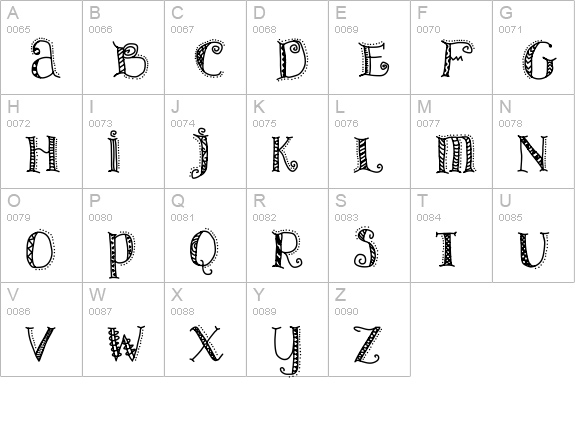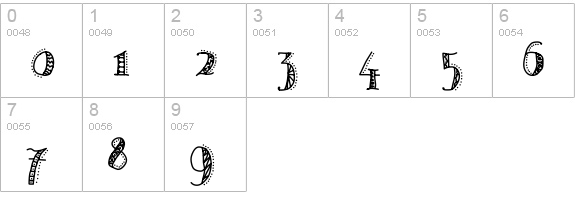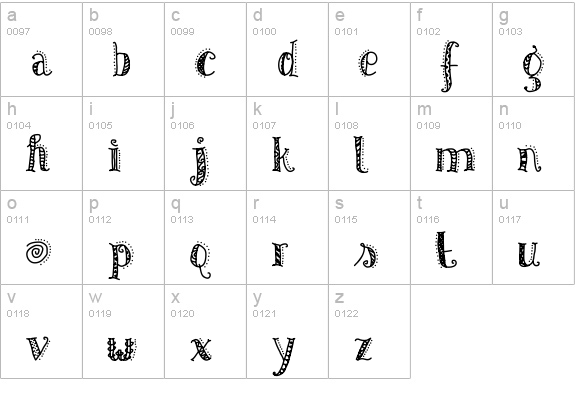
Patterns & Dots Font Details
Patterns & Dots font is a stunning and versatile typeface that will add a touch of creativity and playfulness to any design project. With its unique combination of patterns and dots, this font exudes a sense of fun and whimsy, making it perfect for a wide range of applications. Whether you're designing a logo, crafting a poster, or creating a captivating social media graphic, Patterns & Dots font will effortlessly grab attention and leave a lasting impression. Its intricate patterns and carefully placed dots create a visually striking effect that will make your text truly stand out. The best part? Patterns & Dots font is available for free download at FontsMarket.com. Yes, you read that right - this incredible font can be yours at absolutely no cost. With just a few clicks, you can have access to this amazing font and start incorporating it into your designs immediately. What sets Patterns & Dots font apart is not only its aesthetic appeal but also its versatility. The font offers a wide range of characters, allowing you to create unique and captivating typography. Whether you're going for a bold and eye-catching look or a more subtle and elegant feel, this font has got you covered. The attention to detail in Patterns & Dots font is truly remarkable. Each pattern and dot has been meticulously crafted, resulting in a font that is not only visually stunning but also incredibly readable. No matter the size or scale of your design, this font will maintain its clarity and legibility. So why wait? Head over to FontsMarket.com and get your hands on Patterns & Dots font today. With its striking patterns, playful dots, and endless possibilities, this font will elevate your designs to new heights. Don't miss out on this incredible opportunity to add a touch of creativity and excitement to your work. Download Patterns & Dots font now and let your imagination run wild.